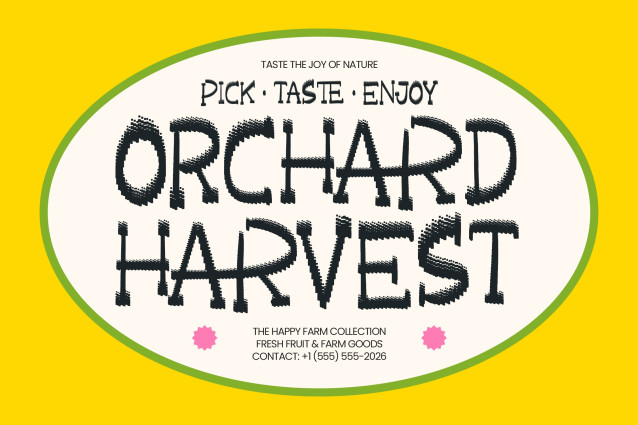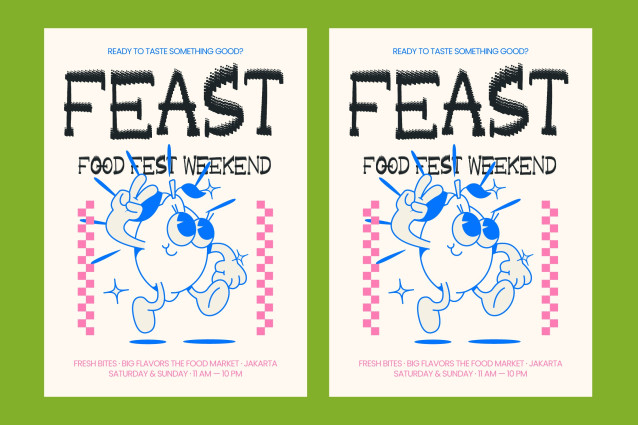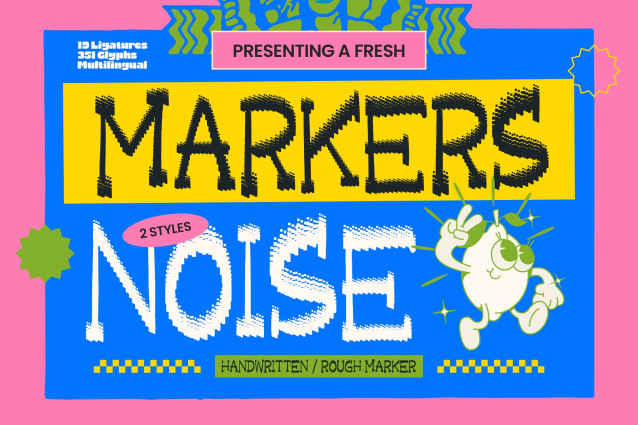
Markers Noise – Handwritten Rough Marker
Unleash a bold, rebellious energy within your creative projects by utilizing the striking aesthetics of Markers Noise – Handwritten Rough Marker. This typeface captures the raw texture and authentic grit of real marker strokes, featuring a unique halftone dither effect that adds immediate depth and a lo-fi vintage charm. It is designed for those who want to move away from sterile digital lines and embrace a handcrafted, organic feel that demands attention in a crowded marketplace.
Global accessibility meets uncompromised style in this comprehensive typeface, ensuring your message resonates regardless of the region. With its extensive multilingual support, Markers Noise – Handwritten Rough Marker adapts seamlessly across global markets, making it incredibly versatile for international projects. Boasting 351 glyphs and 19 custom ligatures, the font provides a fluid, natural rhythm that mimics genuine handwriting, allowing for a bespoke typographic experience in every layout.